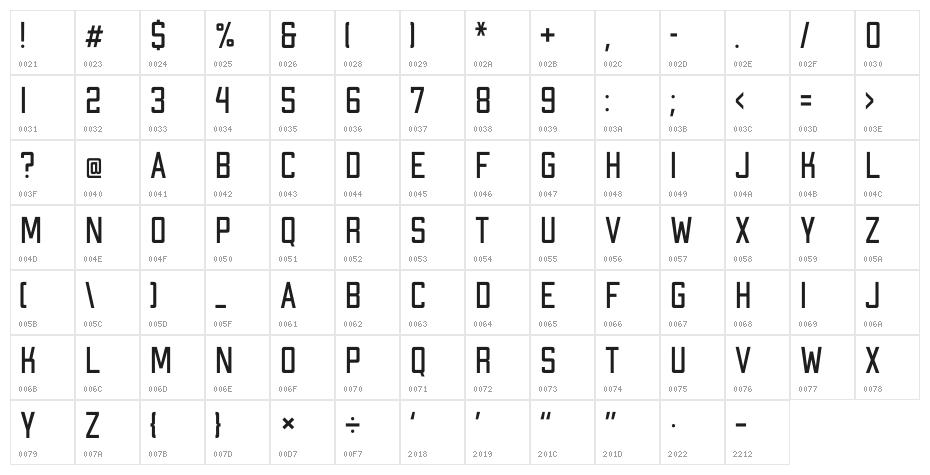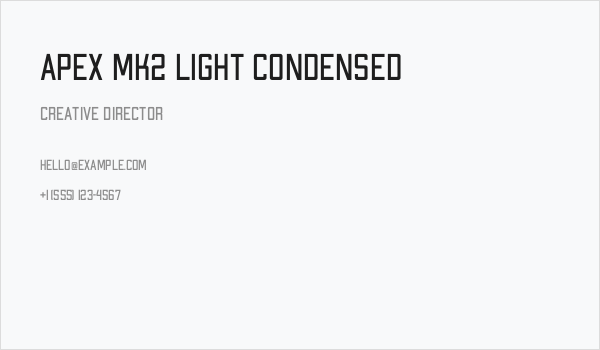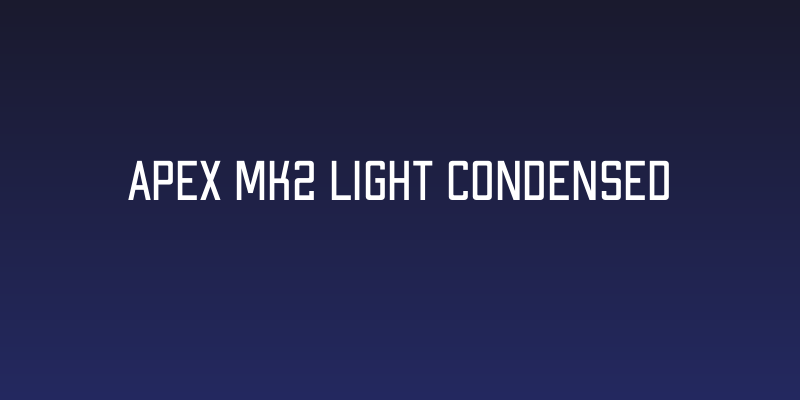
Apex Mk2 Light Condensed Font
Apex Mk2 Light Condensed Description
This font features a modern, geometric design with a condensed structure that emphasizes verticality. The characters are clean and straightforward, with a uniform stroke width that contributes to a sleek and professional appearance. The uppercase and lowercase letters maintain a consistent height, enhancing readability. The numerals and special characters are designed to match the overall aesthetic, providing a cohesive look across all elements. This font's light weight and condensed form make it ideal for applications where space is limited but clarity is essential.
| Use Case | Headlines, Logos, Digital Interfaces |
| Proposed Projects | Ideal for branding, editorial design, posters, and digital interfaces where space efficiency and clarity are crucial. |